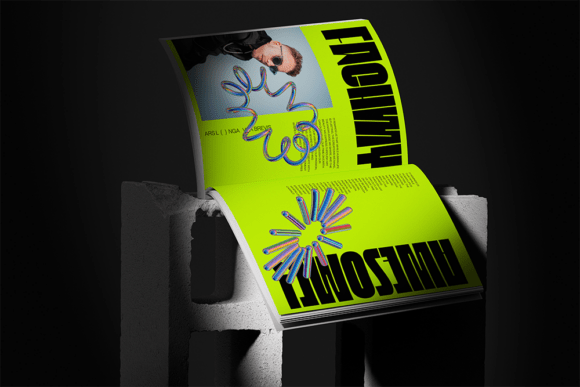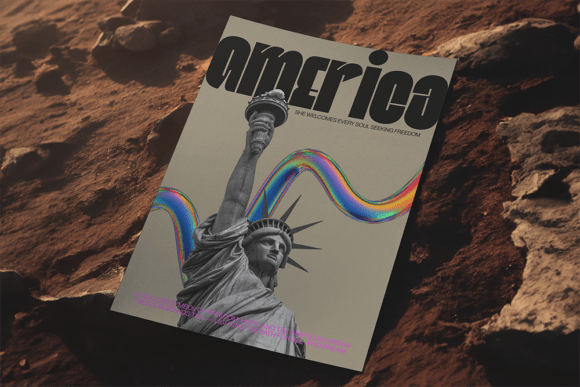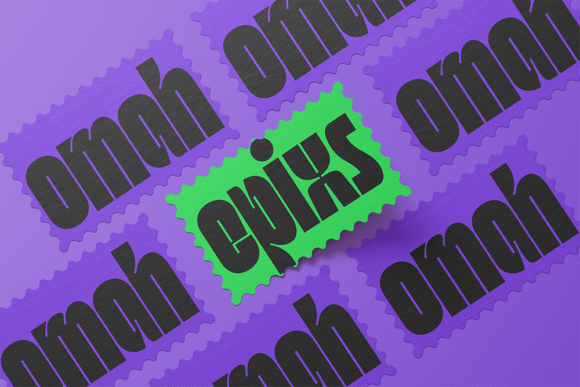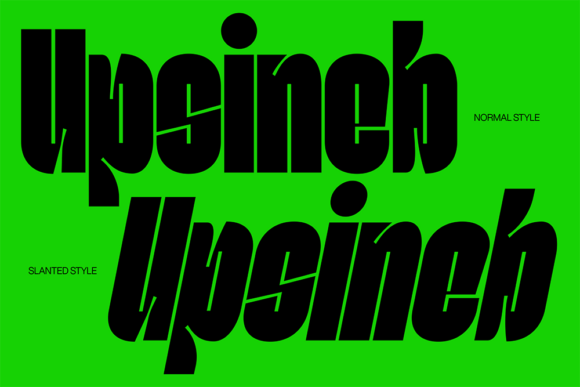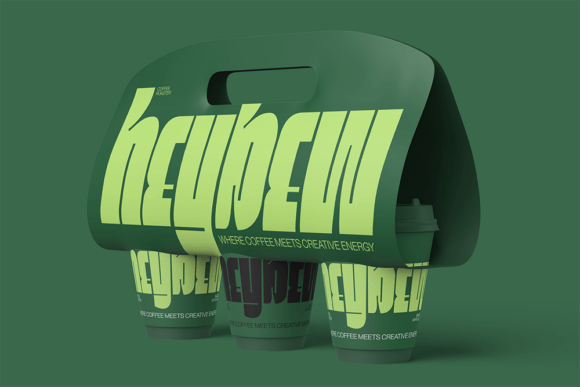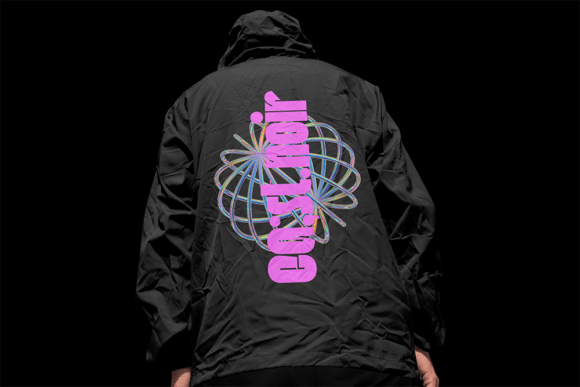
Introduction to Kangder Font
As designers, we’ve all been there – staring at a blank canvas, desperately seeking that one font that will elevate our creative project to the next level. And then, like a ray of sunshine, you stumble upon it – the perfect font that not only speaks to your audience but also exudes professionalism. For me, that font is Kangder, a bold display font that never fails to make a statement.
Imbued with a daring, contemporary aesthetic, Kangder Font stuns as an emphatically bold display font. Its strikingly expansive, carved letterforms command instant notice, making it an exceptional choice for logos, headlines, displays, and more. Whether you’re working on a high-quality design resource or need a free download for your next creative project, Kangder Font is the perfect utility to craft unforgettable, substantial designs with a transparent background that truly makes your message shine.
Key Features of Kangder Font
- Kangder Font is highly versatile, suitable for use in various creative projects, from logos to typography-based designs.
- This unique font design combines modern and classic elements, making it a standout choice for designers seeking a distinctive look.
Honest Review: Kangder Font
As a designer, I’m always on the lookout for high-quality design resources to enhance my creative projects. The Kangder Font is one such find that caught my attention.
What works well about the Kangder Font is its elegant and modern design. It’s perfect for creating a sophisticated and professional look in your design. The font is available for free download, making it an excellent addition to any design arsenal. One of its standout features is the availability of a transparent background, allowing you to easily integrate it into any design without any background noise.
Here are some of the features that make the Kangder Font a valuable design resource:
- Modern and elegant design
- Perfect for professional and creative projects
However, I do find that the font can be a bit limited in terms of its flexibility. The font is primarily designed for digital use and may not be the best option for print materials. Additionally, the font’s style can be a bit too uniform, making it less suitable for projects that require a more varied font selection.
Overall, I’d say the Kangder Font is a solid choice for designers looking for a high-quality, modern font. While it may have some limitations, its elegant design and free download make it a valuable addition to any design resource collection.
Kangder Font
The Kangder Font is a versatile design resource that can be used in a variety of creative projects, including logos, business cards, brochures, and social media graphics.
To get the most out of the Kangder Font, consider the following tips:
2. Experiment with different font sizes and styles to add visual interest to your design.